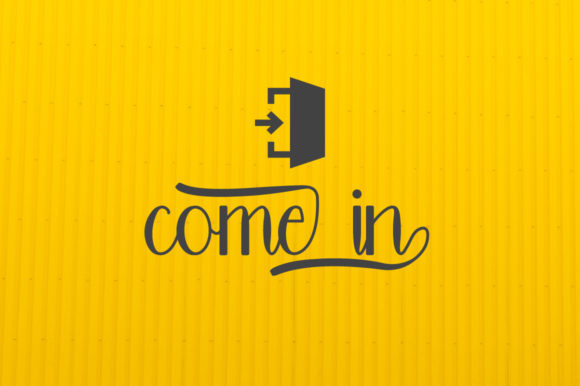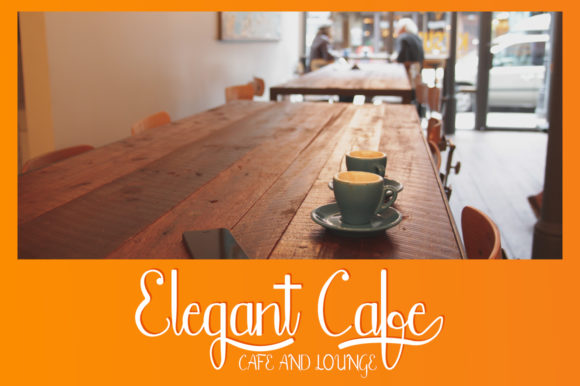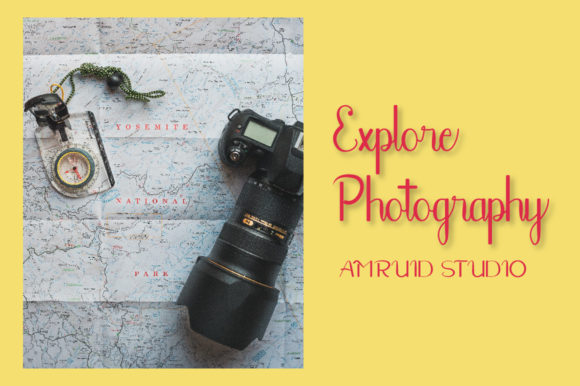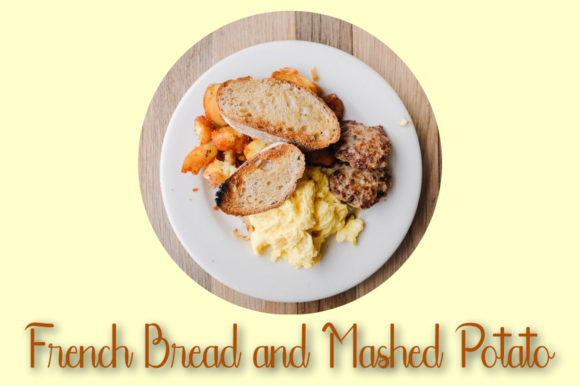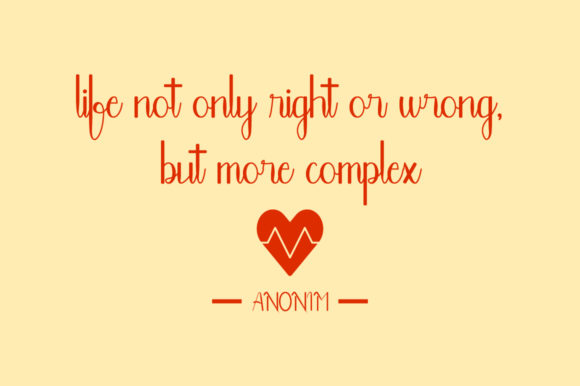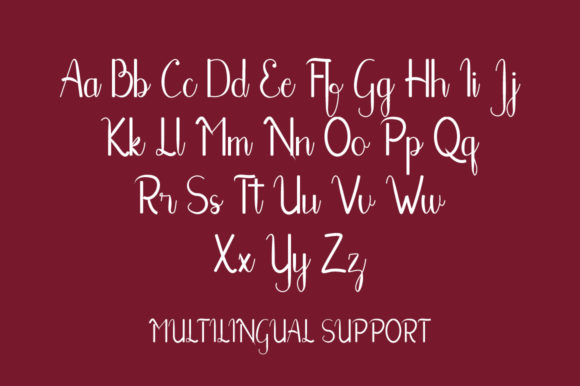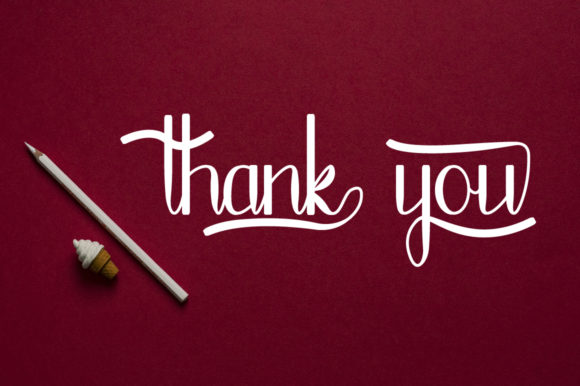
HomeScript FontsReyna Font Script Fonts Reyna Font FacebookXPinterestWhatsApp Reyna Font Poster 2 Reyna Font Poster 3 Reyna Font Poster 4 Reyna Font Poster 5 Reyna Font Poster 6 Reyna Font Poster 7 Reyna Font Poster 8 About Reyna Font Reyna features smooth and dazzling curves in each letter, making it an extraordinarily beautiful handwritten font. DOWNLOAD ON CREATIVE FABRICAThis font is sold and delivered by Creative Fabrica. Font Canyon may earn a commission if you buy through this link. People also explored Felbreno Font Boho Font Magic Night Font Borsigiana Font Checkpoint Halbreno Font Herlando Font Douceur Font Milan in Paris Font 333 0 TagsReyna Font Previous articleSelfila FontNext articleLL Claus Font LEAVE A REPLY Cancel reply Comment: Please enter your comment! Name:* Please enter your name here Email:* You have entered an incorrect email address! Please enter your email address here Website: Save my name, email, and website in this browser for the next time I comment. Personal Use Free Luxima Personal Use Free Read more about this font Autumn Flowers Font Personal Use Free Read more about this font Broodfath Personal Use Free Read more about this font Doodle Font Personal Use Free Read more about this font BLOG Transform Your Website: Elevate Your Typography with 7 Best Web Font Generators Are you ready to transform your website's typography from ordinary to extraordinary? Great! Today, we're diving into the world of web font generators, which... Top 10 Handwritten Fonts That Elevate Your Designs Free Fonts Risk: Why Free Fonts Can Be Dangerous for Designers Top 7 Google Fonts Alternatives for Faster and Privacy-Friendly Web Design (2025)